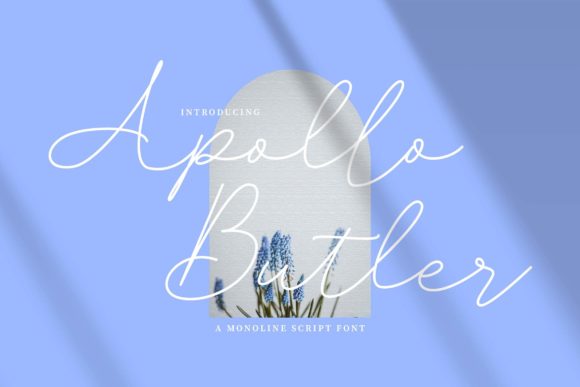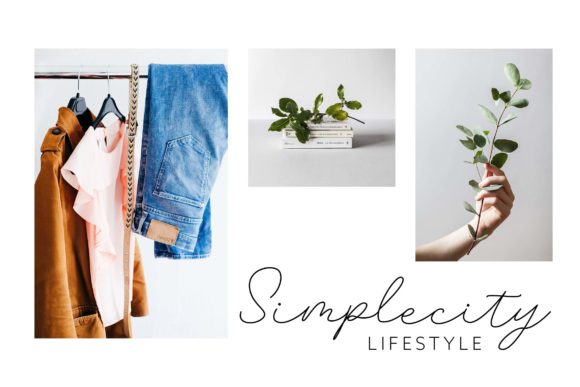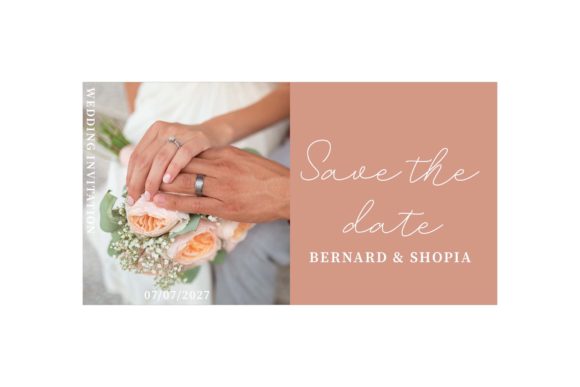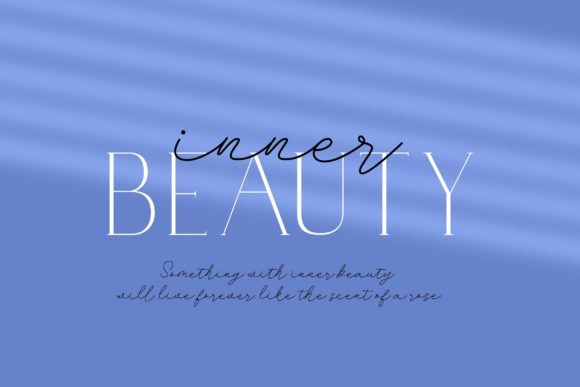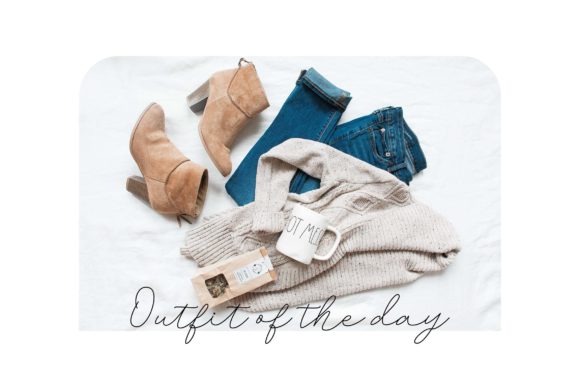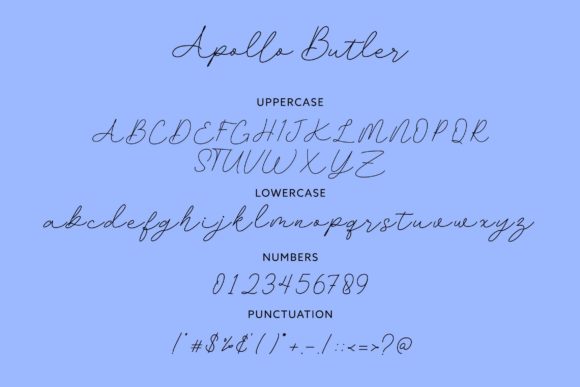
Apollo Butler Font
About Apollo Butler Font
Apollo Butler is a thin lettered script font carefully created with a touch of elegance. Whether you’re looking for fonts for Instagram or calligraphy scripts for DIY projects, this font will turn any creative idea into a true piece of art!